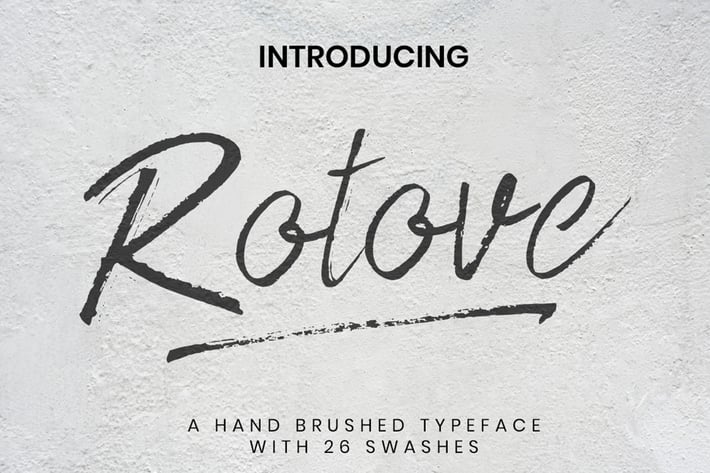
Rotove - Brush Font
Rotove is a Hand brushed typeface with 26 swashes, Rotove is a dry brush script made from natural flow scratch with signature style.